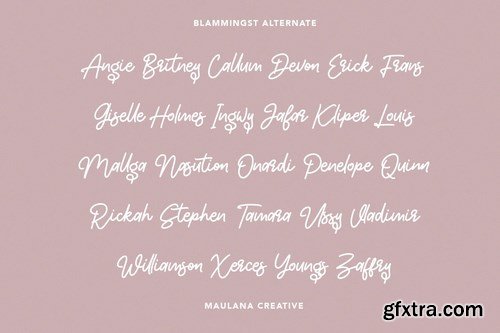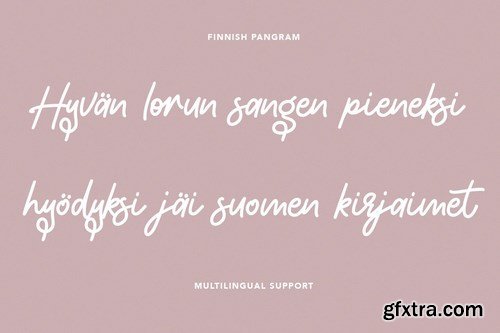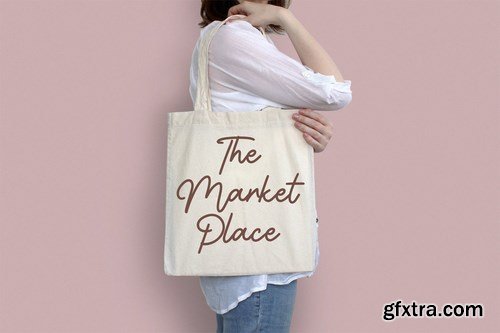
Blammingst is a clean script font modern casual and smooth moonlike stroke font includes opentype features Ligatures and Alternate lowercase. It support multilingual more than 100+ language. This font is suitable for logo design, Movie Titles , Books Titles and any awesome project you create. Make stunning work with Blammingst and Blammingst Alt font.